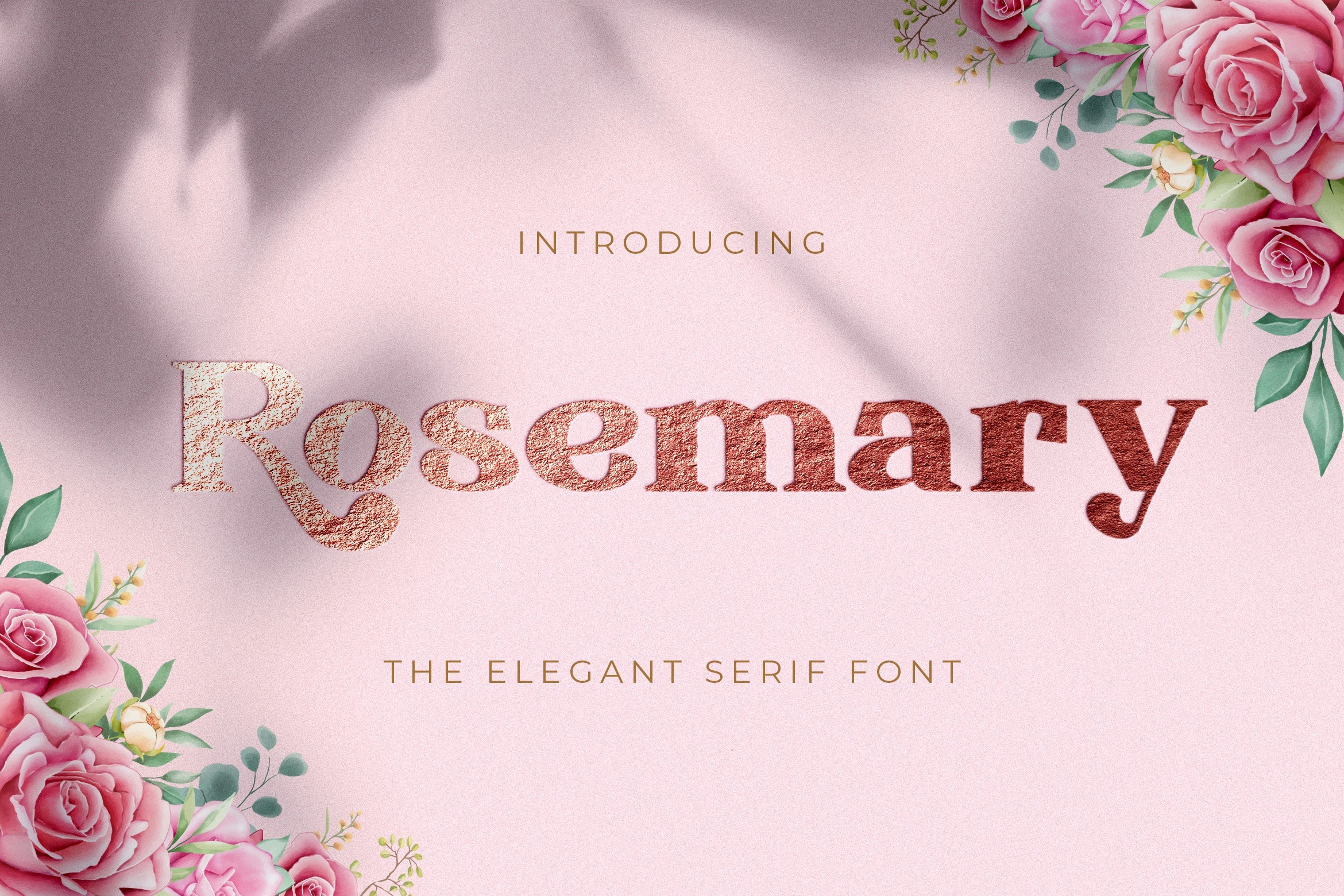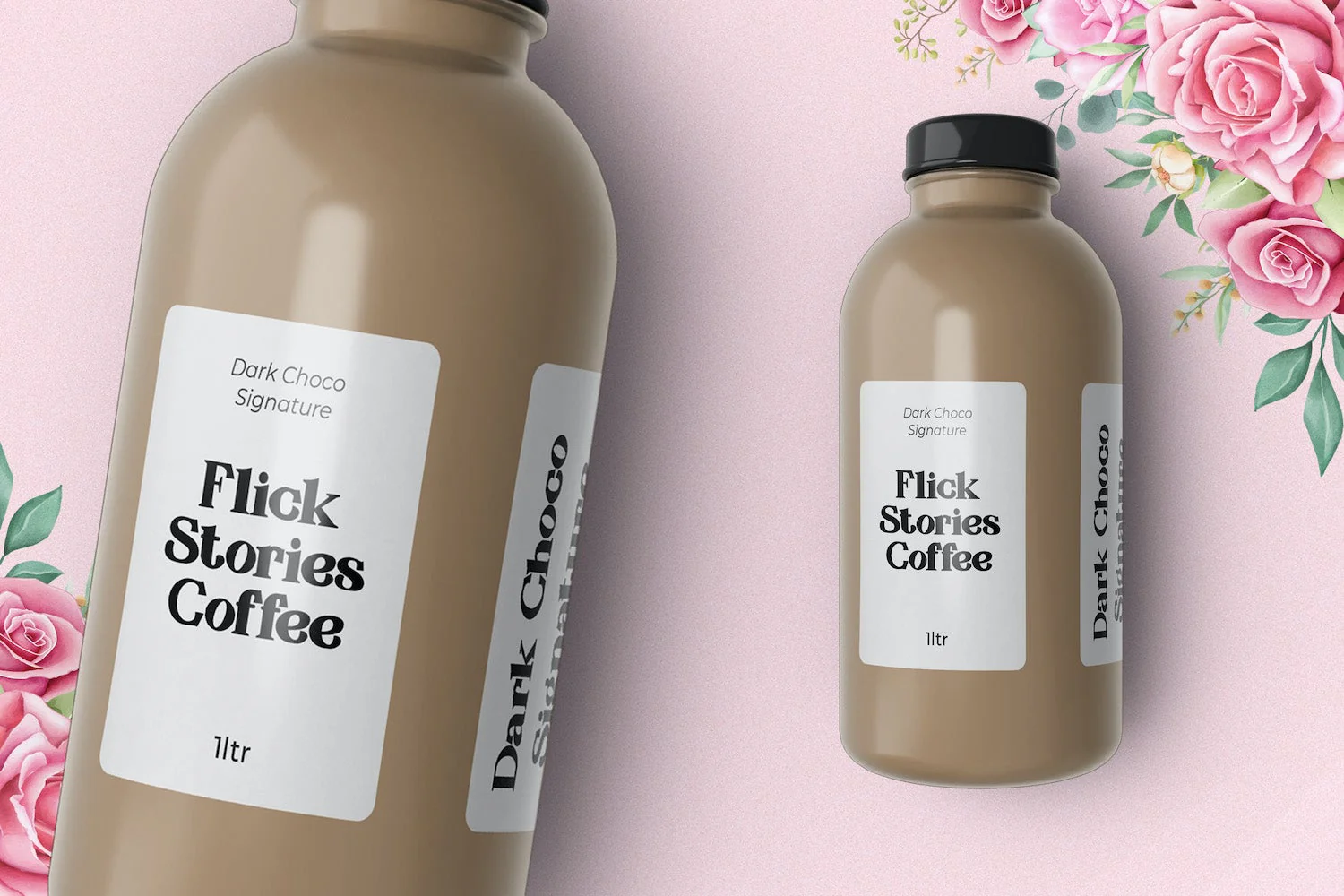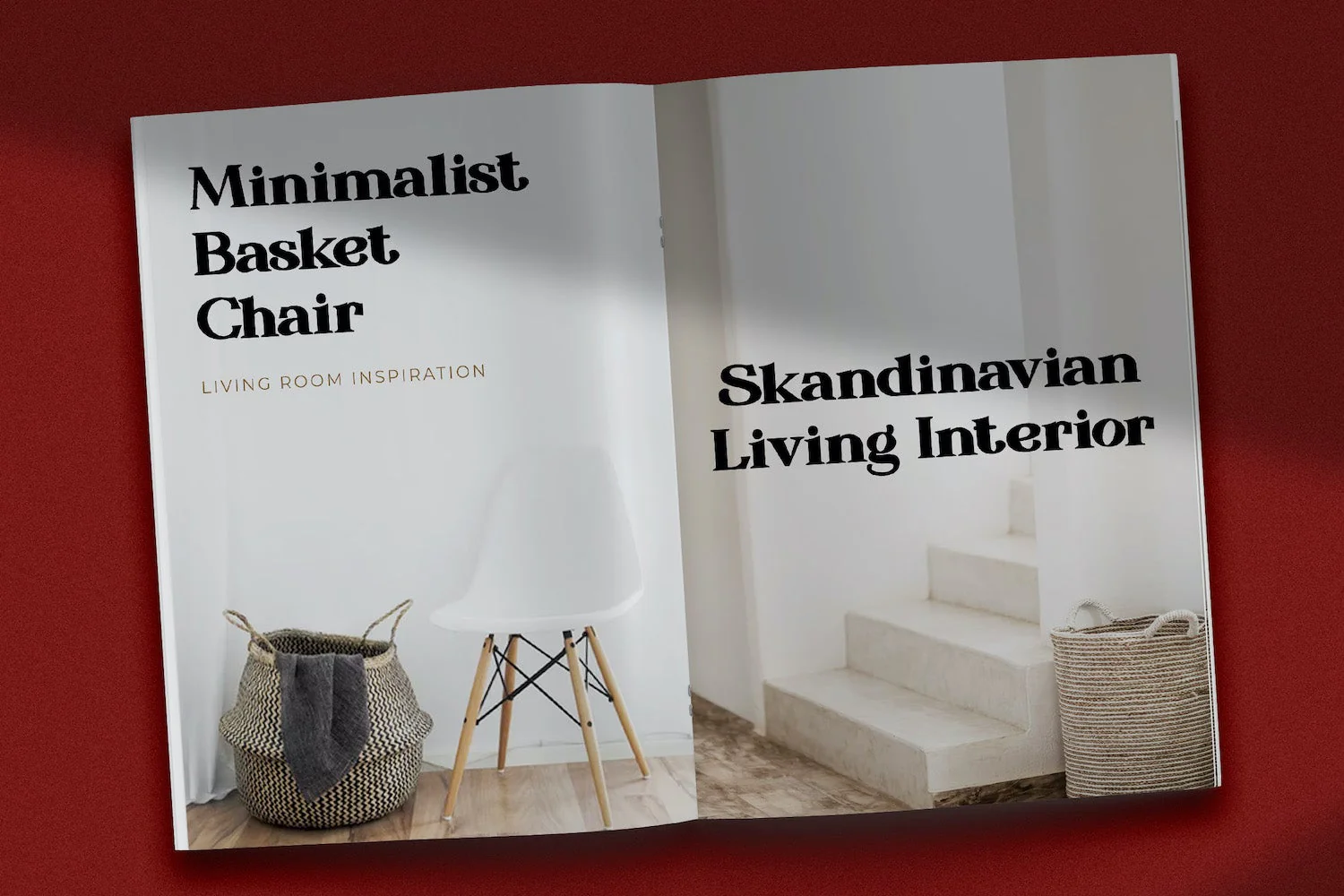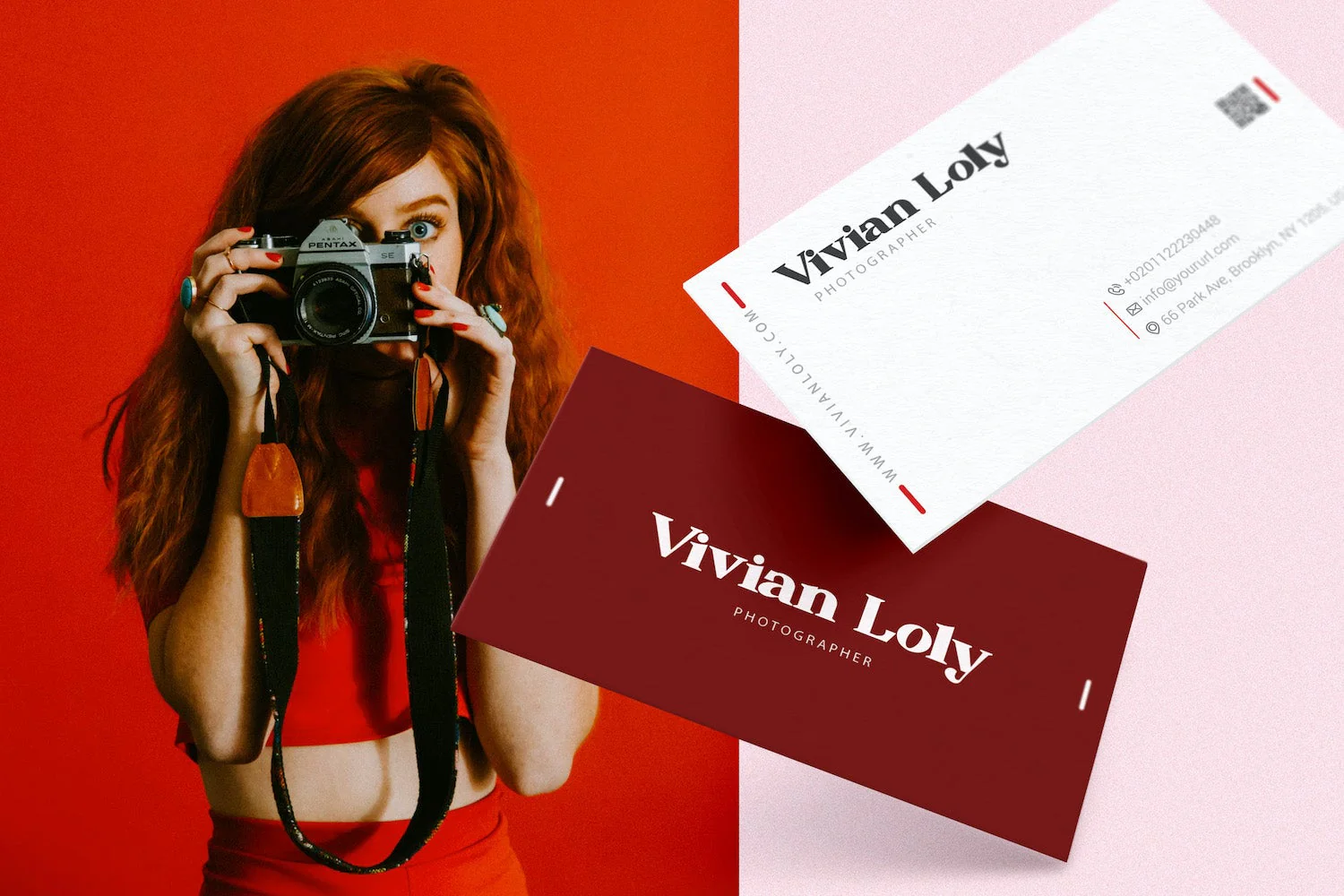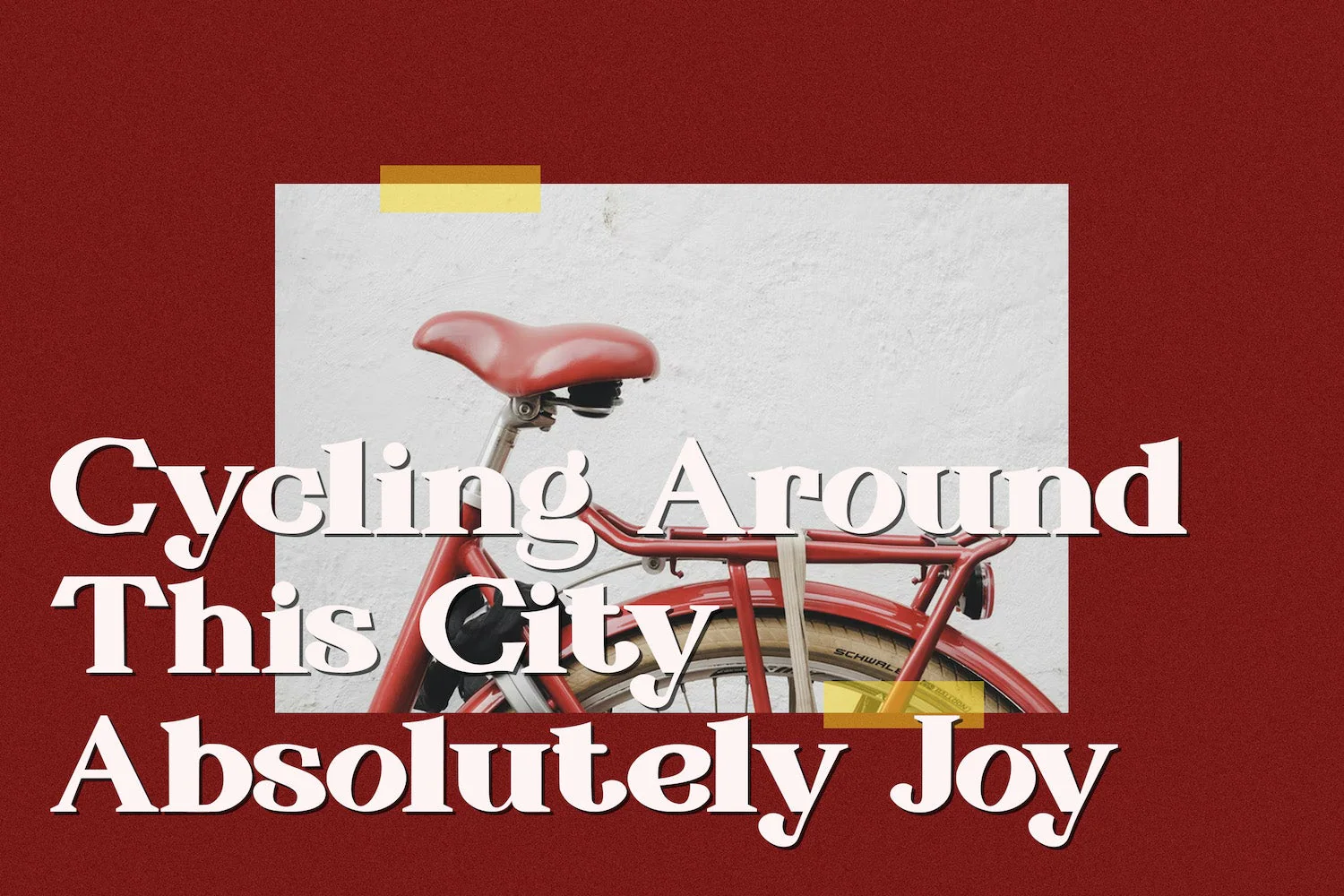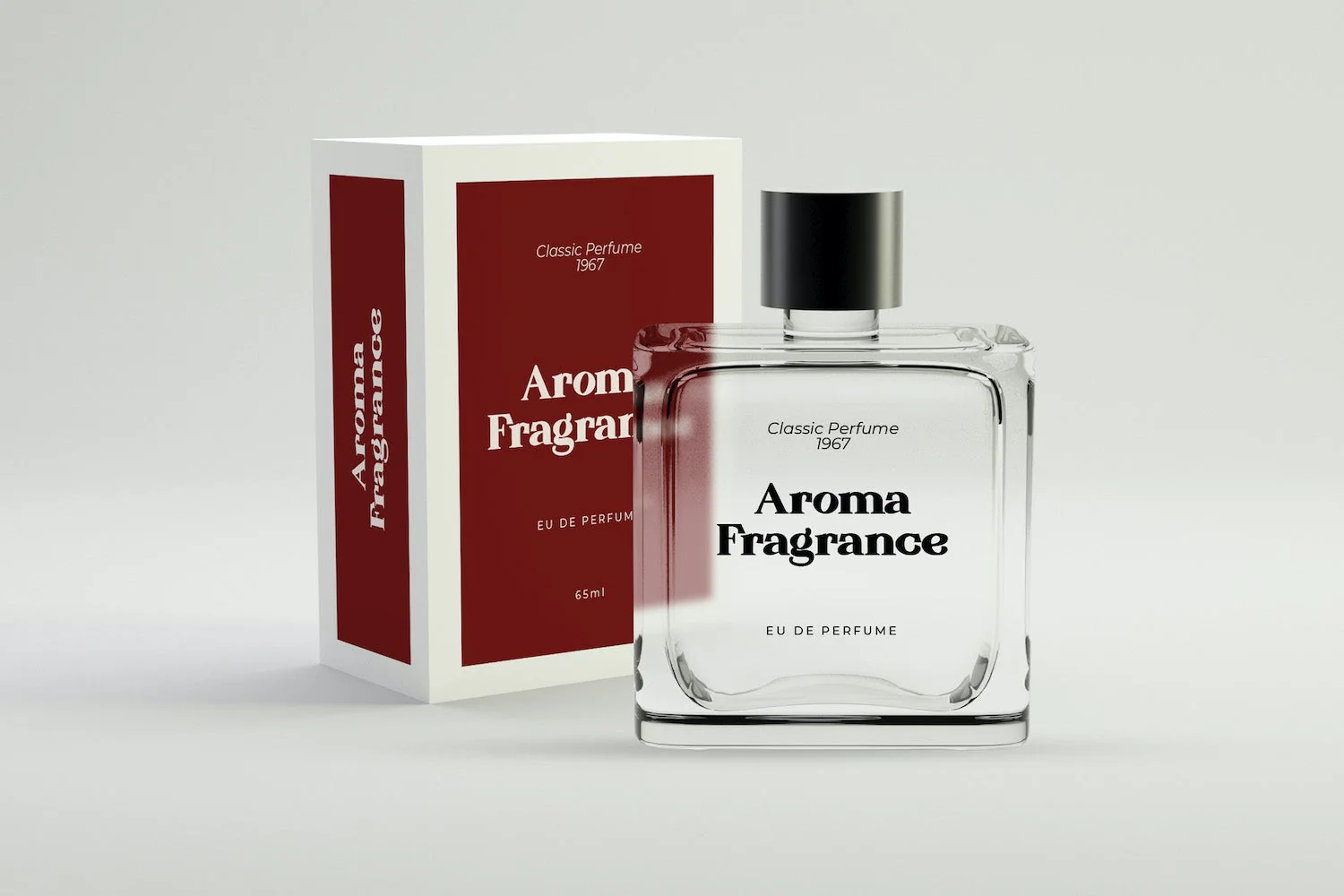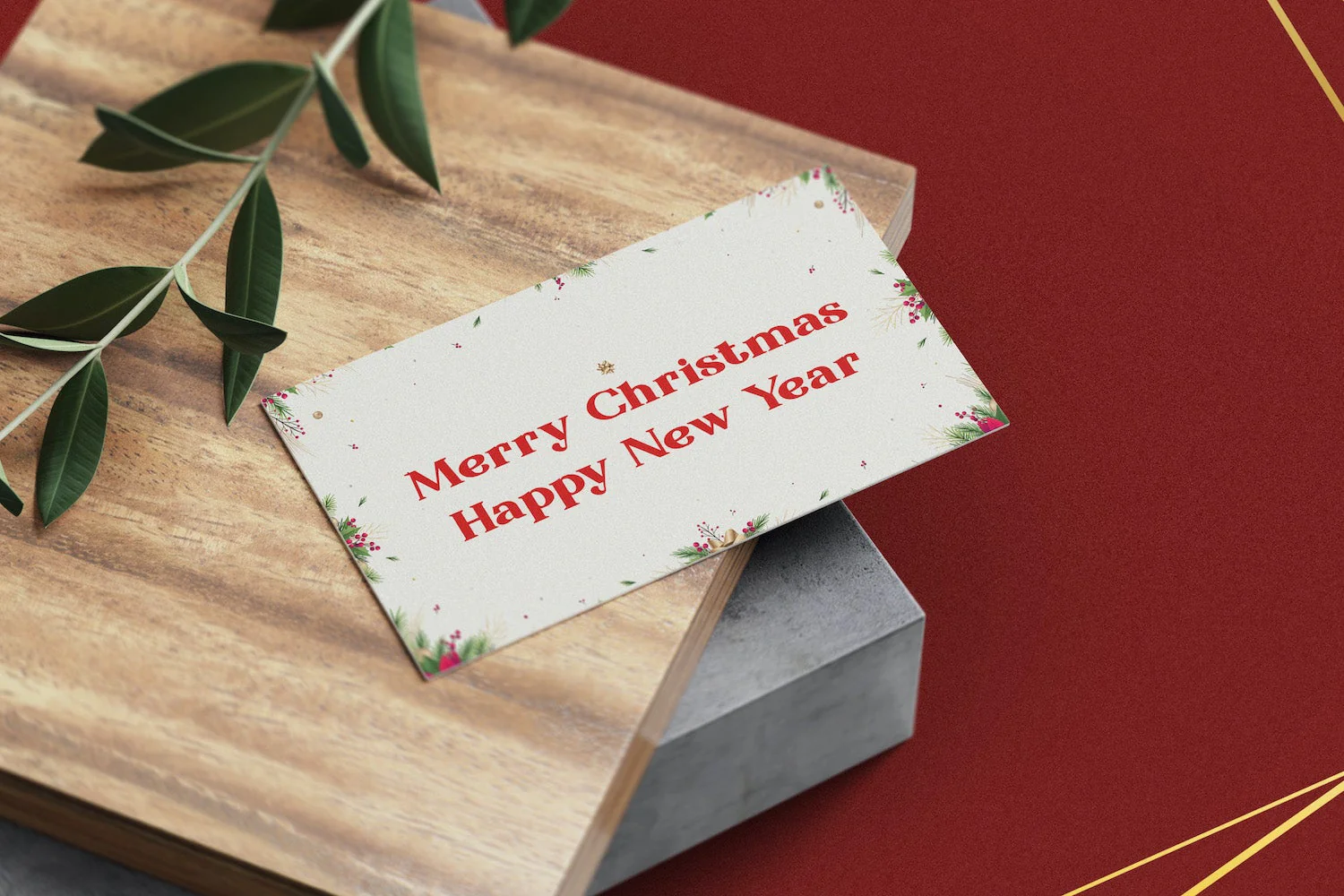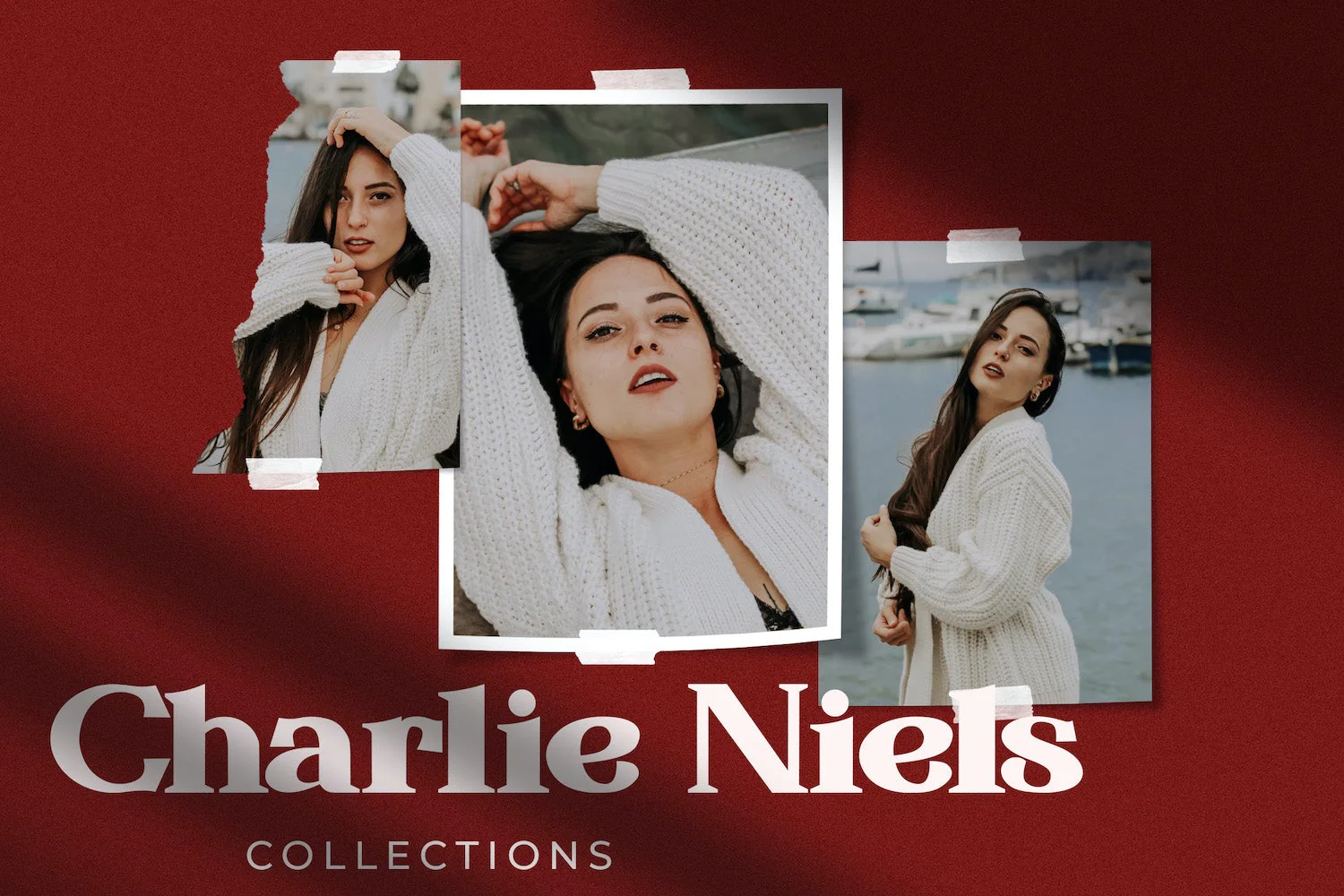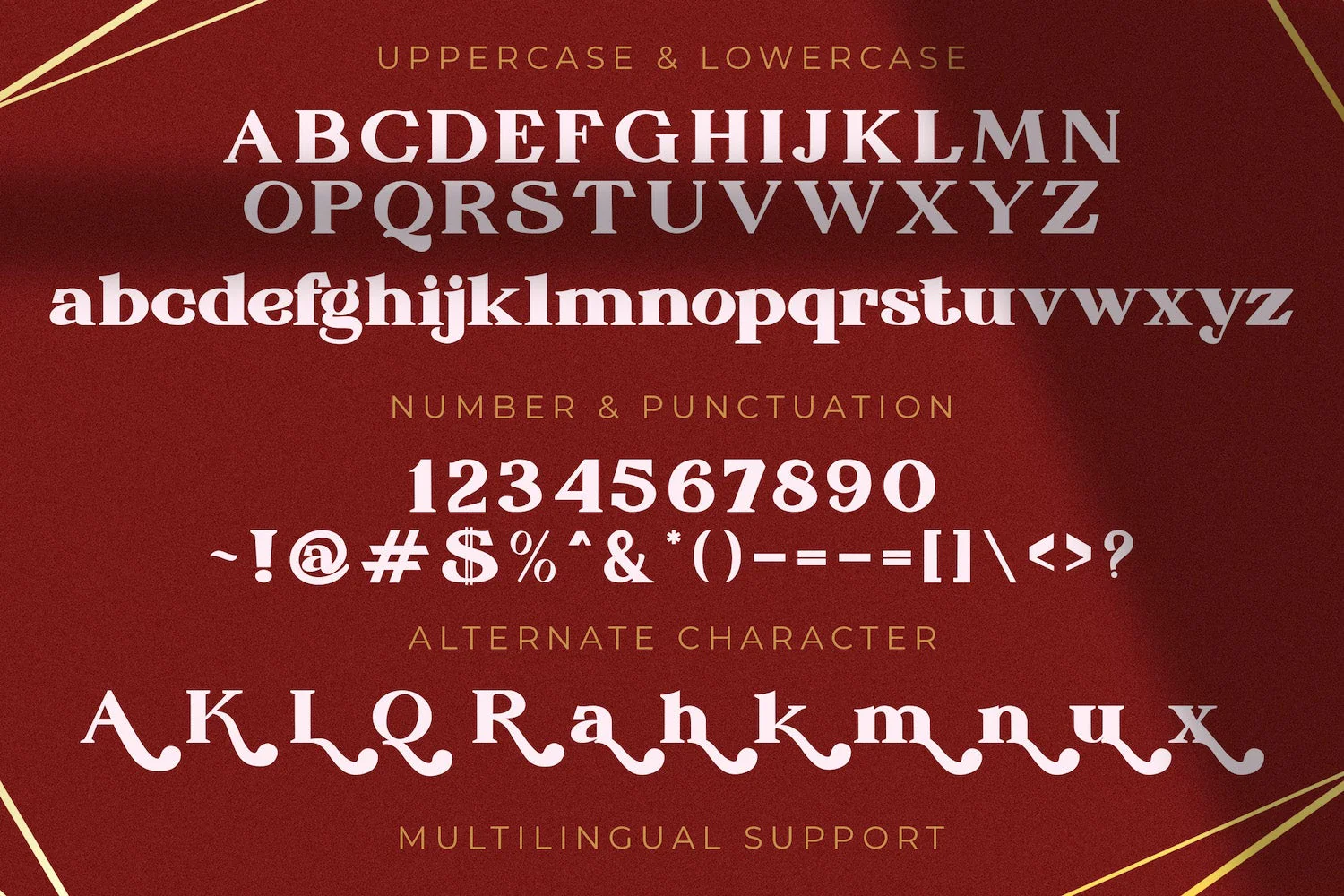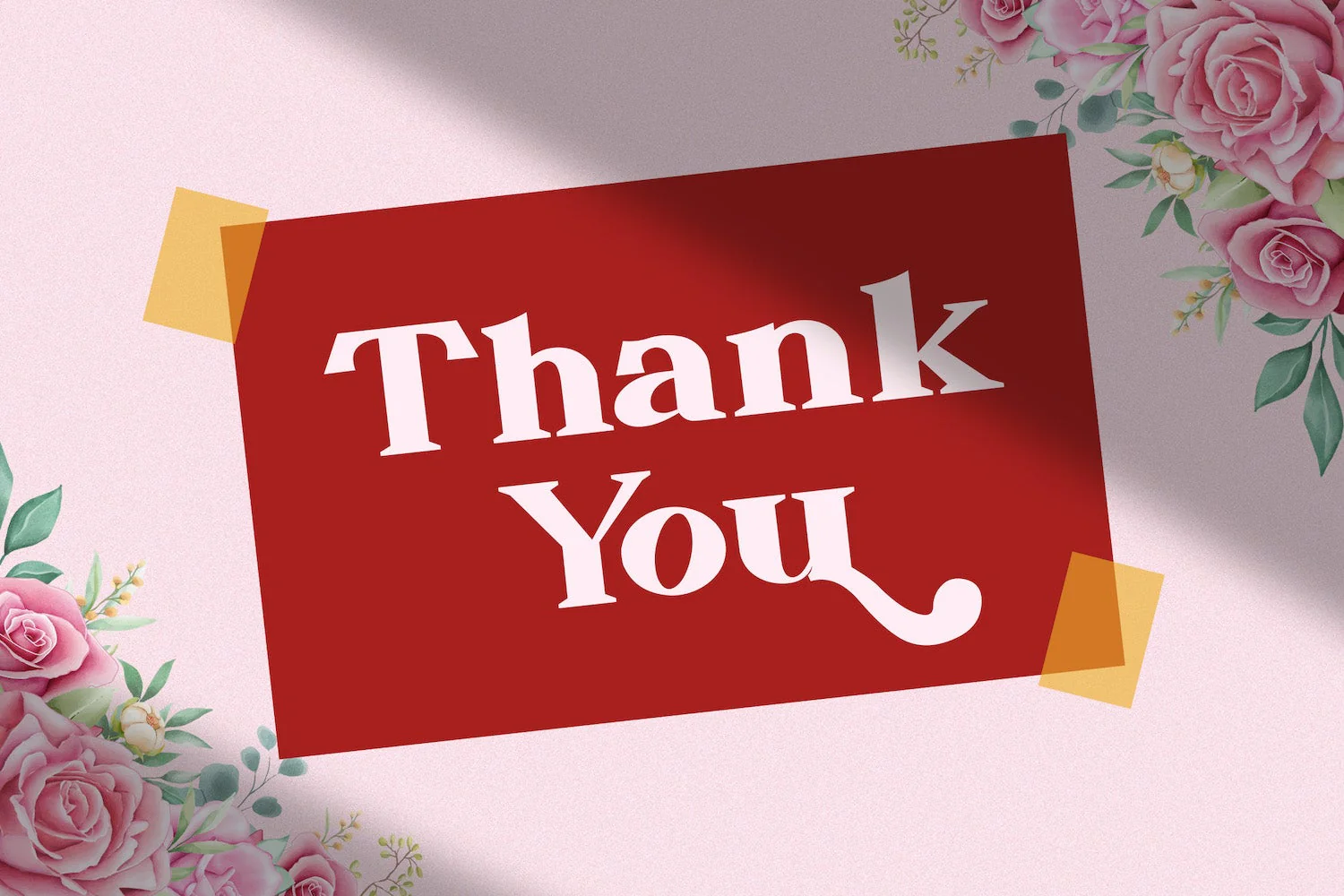
Rosemary - Elegant Serif Font
Introducing Rosemary - Elegant Serif Font
Rosemary is an authentic and elegant serif font. It can easily be matched to an incredibly large set of projects, so add it to your creative ideas and notice how it makes them stand out!
Introducing Rosemary - Elegant Serif Font
Rosemary is an authentic and elegant serif font. It can easily be matched to an incredibly large set of projects, so add it to your creative ideas and notice how it makes them stand out!